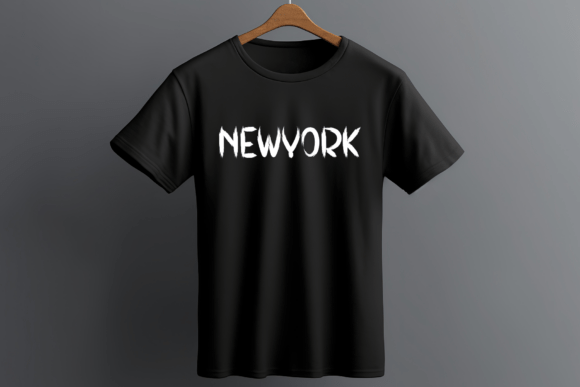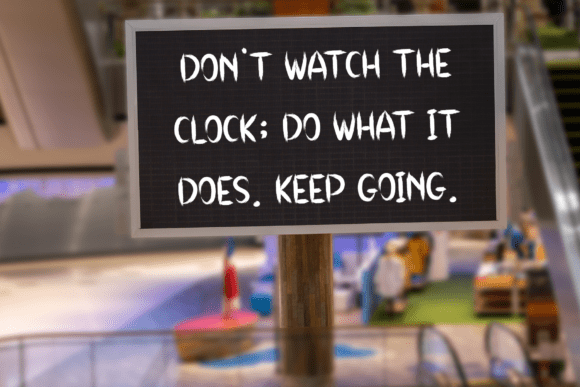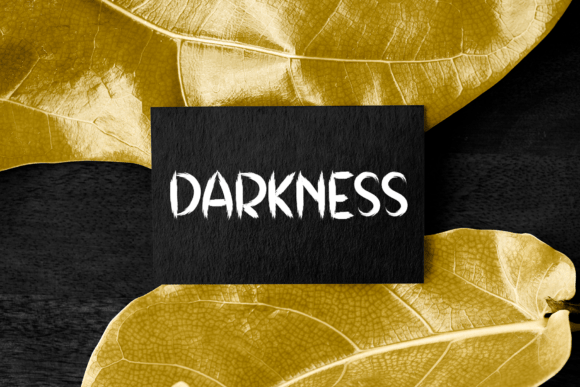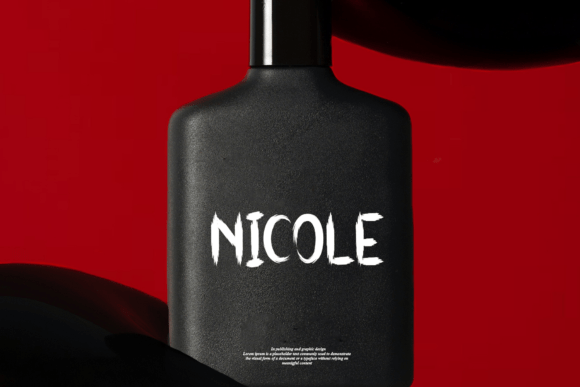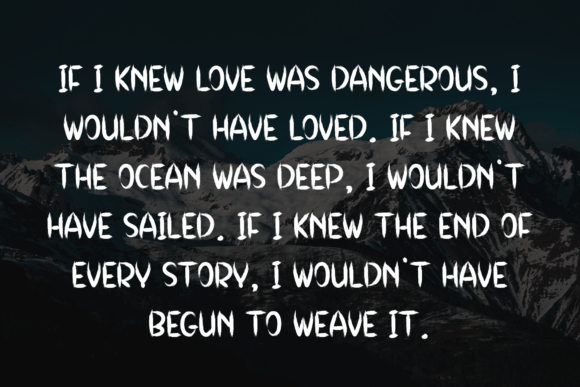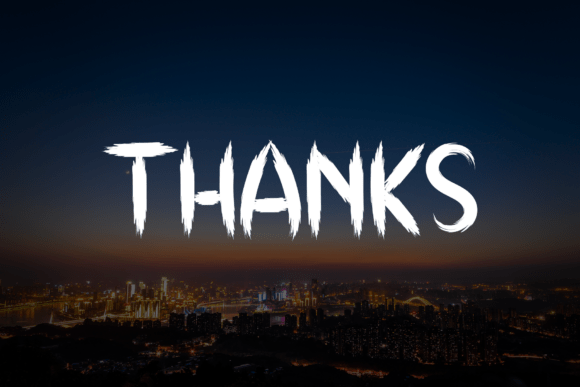
Unleash the Darkness: Exploring the Black Night Font
Are you ready to make a bold statement with your design? Look no further than the Black Night font, a typeface that embodies the essence of raw energy and edginess. This aggressive and creative style font is perfect for those who dare to be different and make their mark in the world of design.
The Aesthetic of Black Night
The Black Night typeface boasts a unique and rugged charm, characterized by jagged, brush-like edges and a distressed texture that gives it a rebellious feel. It’s as if the font was painted in the dead of night, with bold strokes and unapologetic flair. This aesthetic makes it an ideal choice for designs that require a strong, attention-grabbing presence.
Perfect for Dark and Edgy Designs
The Black Night font is tailor-made for designs that thrive in dark and moody environments. Its aggressive style makes it a natural fit for:
- Horror movie posters: Add a touch of terror to your posters with a font that’s as scary as it is stylish.
- Metal band logos: Give your metal band’s logo the edge it needs with a font that’s as bold as your music.
- Edgy streetwear: Make a statement with your streetwear designs, using a font that’s as fearless as your brand.
High-Contrast Environments
The Black Night typeface truly shines in high-contrast environments, where its bold and rugged style can be fully appreciated. Try pairing it with:
- White text on a pitch-black background: Create a striking visual effect that demands attention.
- Neon colors on dark textures: Add a pop of color to your design and make it stand out.
Beyond the Ordinary: Use Cases for Black Night
The versatility of the Black Night font extends far beyond its typical applications. Consider using it for:
- Gaming graphics: Add a touch of intensity to your gaming designs, from logos to UI elements.
- Mystery book covers: Create a sense of intrigue and suspense with a font that’s as mysterious as your story.
- Adrenaline-pumping event banners: Make a bold statement with your event banners, using a font that’s as energetic as your event.
Adding Grit and Intensity to Your Work
The Black Night font is more than just a typeface – it’s an attitude. It’s a way to add a layer of grit and intensity to your work, ensuring that your message is not just read, but felt. Whether you’re a designer, craft, or artist, this font is the perfect tool to help you make a lasting impression.
Dive into the shadows with the Black Night font, and unleash a world of creative possibilities. With its aggressive and creative style, distressed texture, and PUA-encoded ease of use, this font is the perfect choice for designers and crafters who dare to be different. So why settle for ordinary, when you can make a bold statement with the Black Night font?